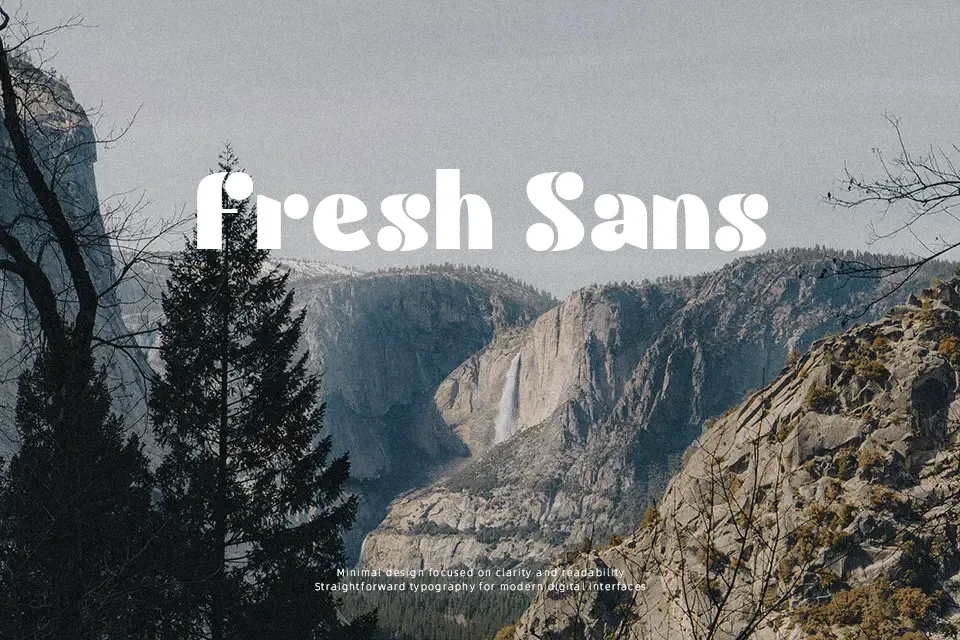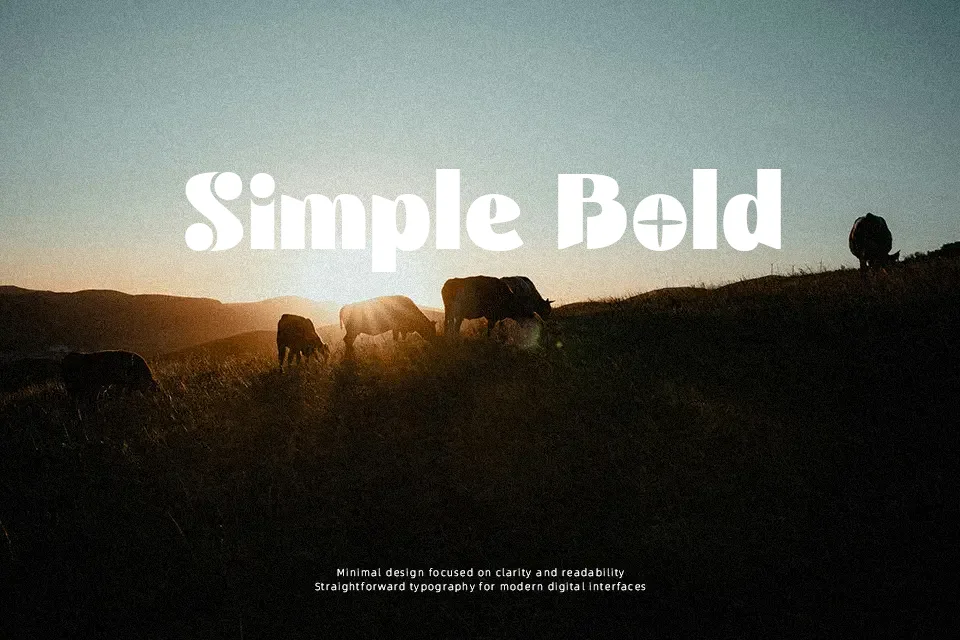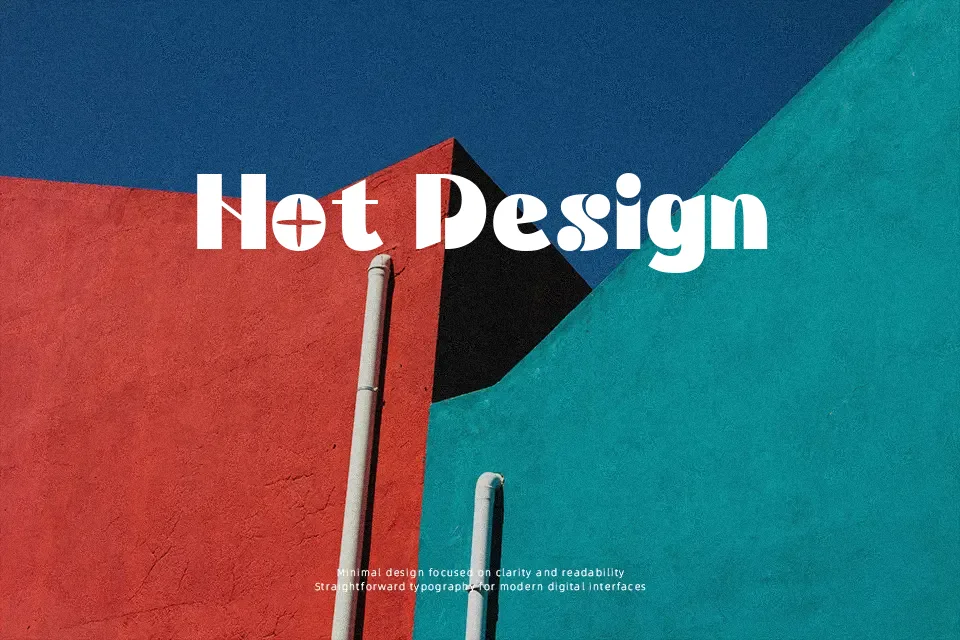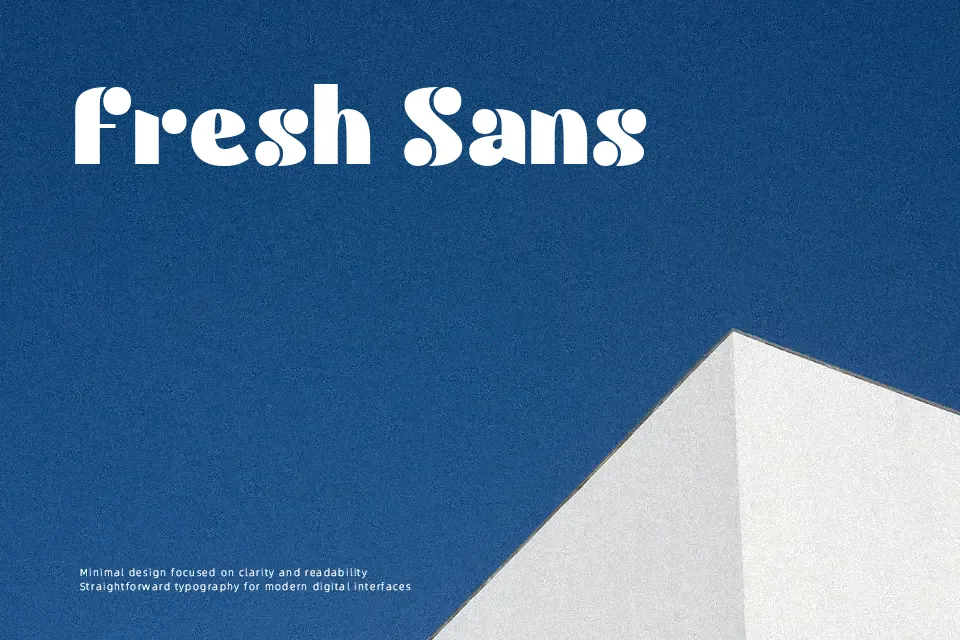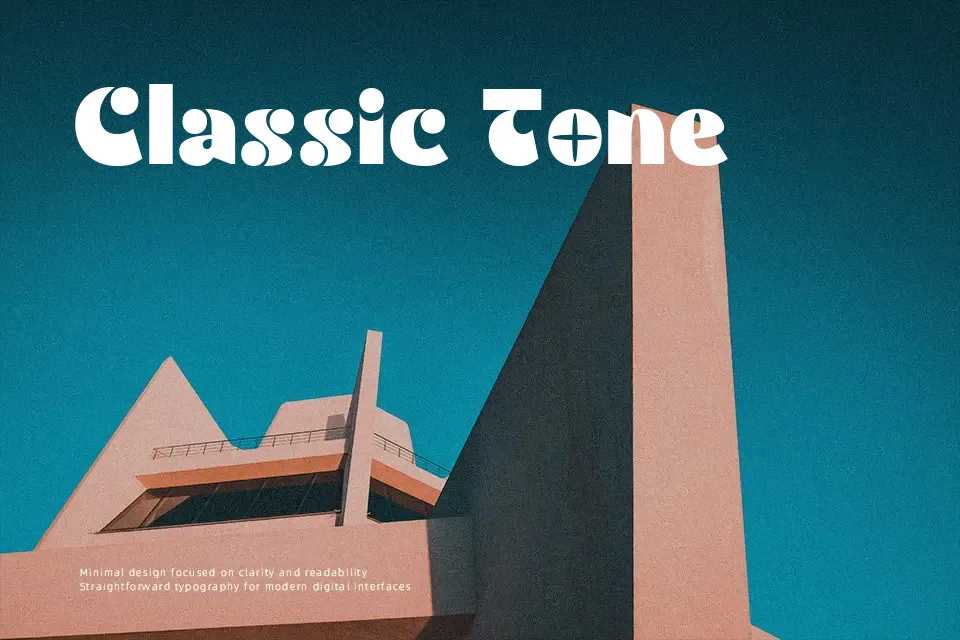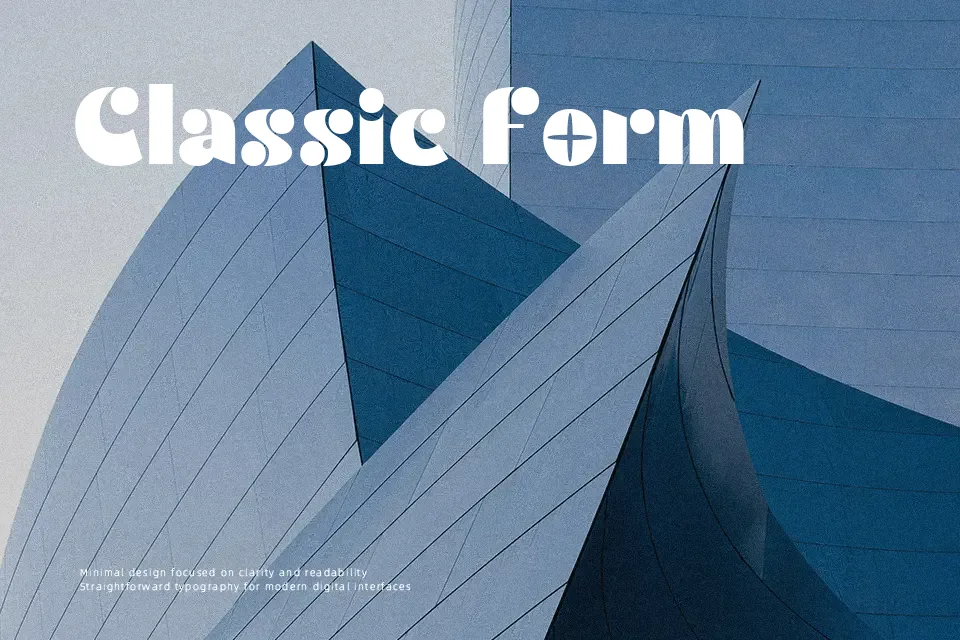
Atnombra Font
There’s something unmistakably 70s about Atnombra — the thick strokes, sharp geometric structure, and high contrast between weight shifts give it a commanding, retro-groovy presence on the page. Uppercase letters carry the most impact, with rounded edges that feel confident without tipping into playful territory. The lowercase characters follow the same bold rhythm but land a touch softer. Where it earns its keep is in short, punchy headline treatments: vinyl record covers, retro festival posters, groovy brand identities. That said, the font file distributed freely is a demo version, meaning it covers personal-use scenarios only — commercial projects require a separate license purchase. At smaller sizes, legibility drops off quickly, so it’s really a display-only tool.
Best For:- Retro music event posters and gig flyers
– Vintage-style logo treatments and wordmarks
– 70s-themed packaging or merchandise headers
– Editorial headlines with a nostalgic groove aesthetic
Not Ideal For:- Body text or long-form reading at any size
– Corporate or formal business documents
– Minimal or modern UI design contexts
– Small-scale print where contrast creates visual noise